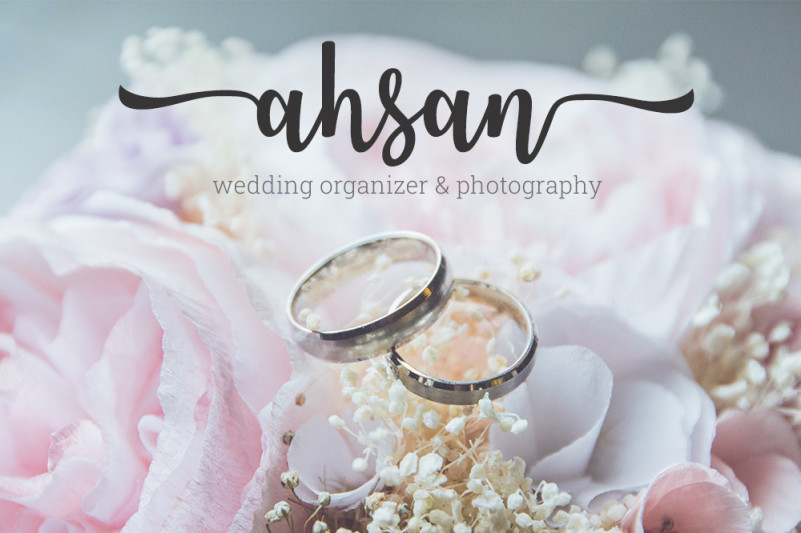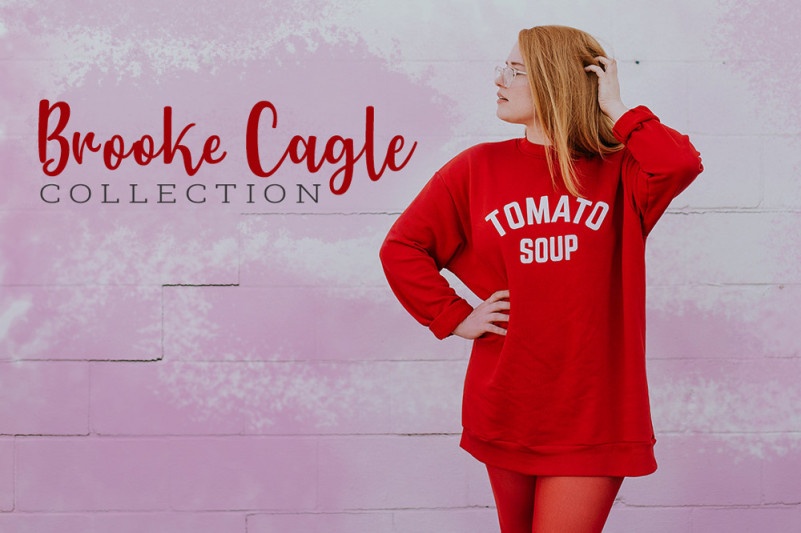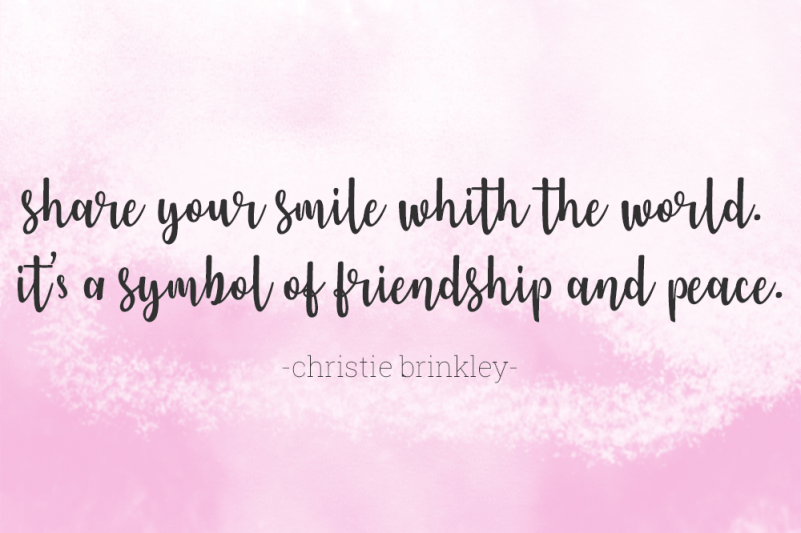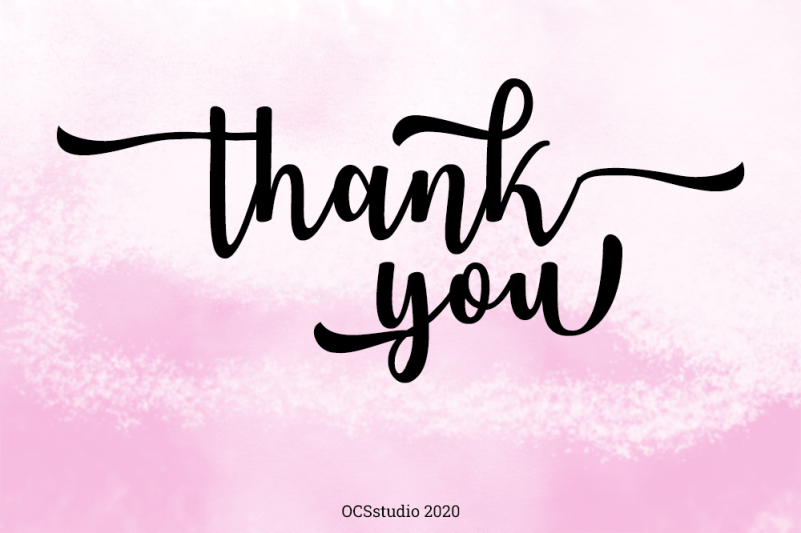
Jeniver Ellis Script Font
Introducing my new font, Jeniver Ellis Script Font made with a pen brush refined to look neat. like dance letters, smooth, clean and simple.
Jennifer ellis are perfect for weddings, events, invitations, escort cards, table numbers, Quotes, displays, logos, blog sliders, special addresses, stamps, packaging, greeting cards, etc.